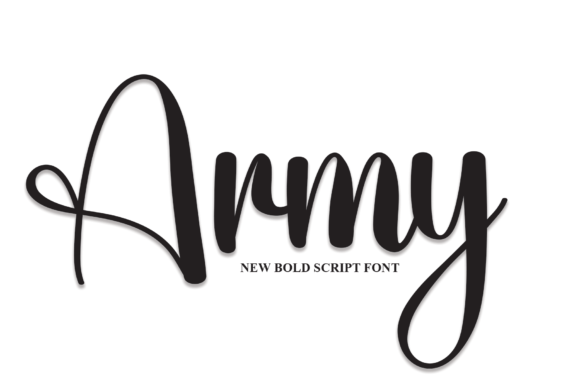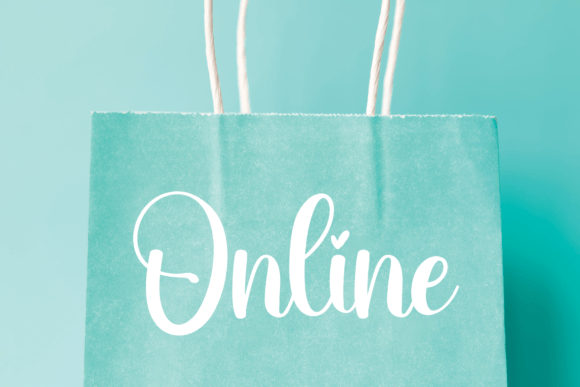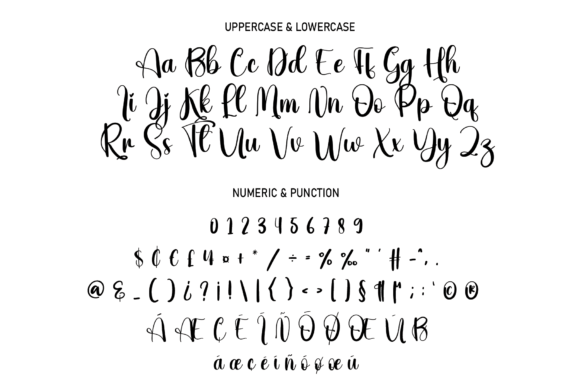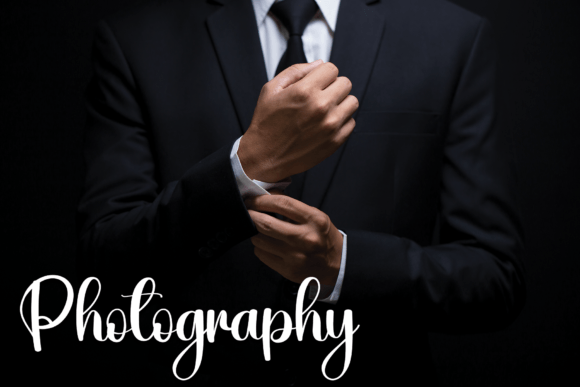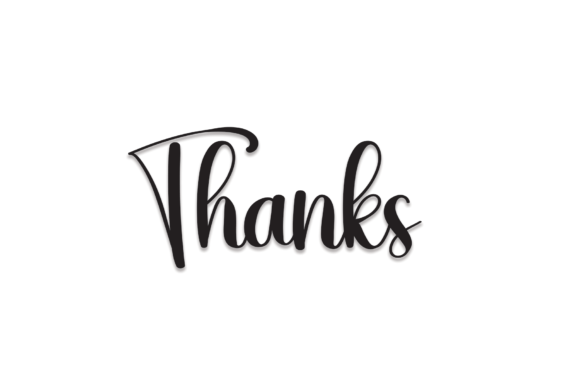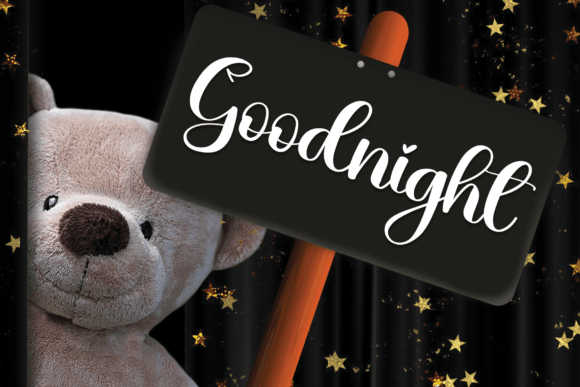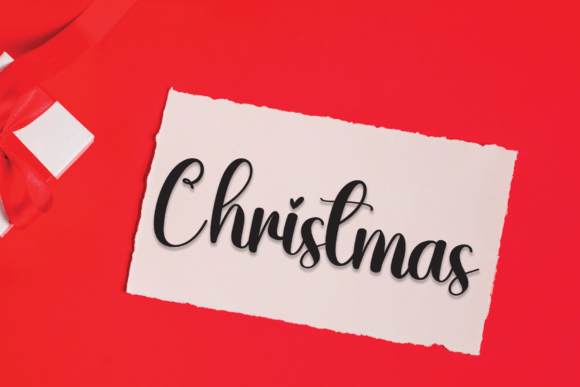
Army Font
About Army Font Download
The Army Font Download is a cool and neat handwritten script designed to bring sophistication and modern charm to your projects. With its elegant calligraphic influences combined with a contemporary flow, Army offers versatility and style across a wide range of creative uses. From branding and packaging to invitations and digital media, this font adapts seamlessly to professional and personal projects.
A Handwritten Script with Calligraphic Elegance
Army captures the refinement of classic calligraphy while maintaining a fresh, handwritten appeal. Unlike ordinary fonts, this Army script font strikes a balance between elegance and readability. As a result, it is an excellent choice for projects where clarity and artistry must go hand in hand.
Invitations are always more memorable when designed with handwritten fonts. The Army Font works beautifully for wedding invitations, birthday cards, thank you notes, and seasonal greetings. Moreover, its graceful strokes give each design a heartfelt and polished look.
Branding and Logo Design with Army Font
Typography has the power to define a brand’s identity. The Army handwritten font is perfect for boutique logos, product packaging, and marketing campaigns. In addition, its stylish details help businesses communicate elegance, professionalism, and creativity.
Posters, Titles, and Creative Displays
Large-scale projects require fonts that stand out while staying stylish. The Army Font Download is ideal for posters, magazine covers, banners, and other display designs. Therefore, it adapts easily to both headline applications and small text uses without losing its charm.
In the digital-first world, engaging typography is crucial. The Army typeface integrates seamlessly into Instagram posts, YouTube thumbnails, Pinterest graphics, and blogs. Its handwritten style ensures that your content feels modern, polished, and visually appealing.
Why Designers Choose Army Typeface
Designers often seek fonts that combine style with usability. Many handwritten scripts lack balance, but the Army handwritten script stays legible and classy at all sizes. This makes it a reliable tool for both professional designers and hobbyists.